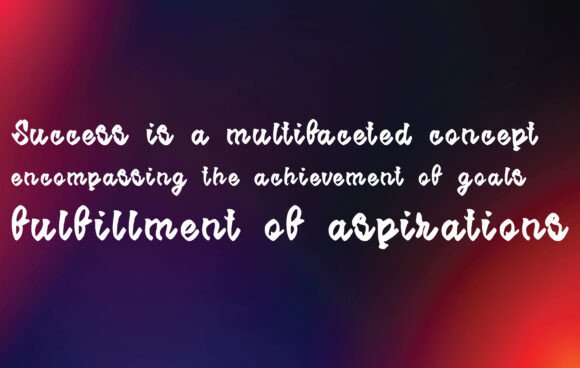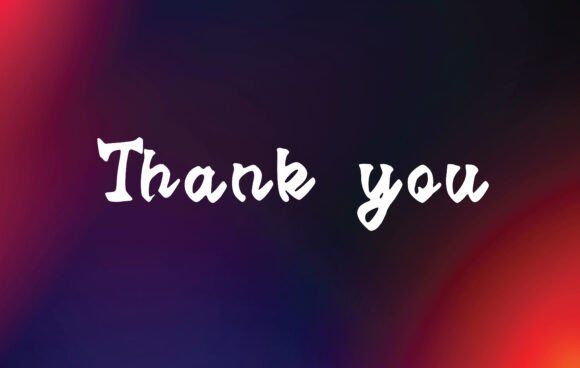
Abilene Font: Elevate Your Creative Projects with this Lovely Handwritten Font
Are you a designer, crafty person, or someone who loves to create unique and eye-catching content? Look no further than the Abilene Font, a beautiful handwritten font that can take your creative ideas to the highest level. In this article, we’ll explore the features and benefits of Abilene Font, and why it’s the perfect choice for creating stunning logos, branding, quotes, and more.
What is Abilene Font?
Abilene Font is a carefully crafted handwritten font that exudes elegance and charm. Its unique and flowing script style makes it perfect for a wide range of creative projects, from logos and branding to quotes, posters, and social media graphics. The font’s beautiful letterforms and subtle variations in line width and spacing create a natural, hand-written look that’s sure to capture your audience’s attention.
Key Features of Abilene Font
- Unique and Elegant Design: Abilene Font features a distinctive and stylish script style that’s perfect for creating eye-catching designs.
- Handwritten Look: The font’s natural, hand-written appearance adds a touch of personality and warmth to your designs.
- Highly Versatile: Abilene Font can be used for a wide range of projects, from logos and branding to quotes, posters, and social media graphics.
- Easy to Read: Despite its elegant and cursive style, Abilene Font remains highly legible, making it perfect for both short and long texts.
Why Choose Abilene Font?
Abilene Font is an excellent choice for designers, crafters, and anyone looking to create stunning visual content. Here are just a few reasons why:
- Stand Out from the Crowd: With Abilene Font, you can create unique and eye-catching designs that set you apart from the competition.
- Save Time and Effort: The font’s elegant and cursive style means you can create beautiful designs quickly and easily, without spending hours on tedious design work.
- Perfect for Branding: Abilene Font is ideal for creating consistent and recognizable branding across all your marketing materials.
How to Use Abilene Font
Abilene Font is incredibly easy to use, even if you’re not a design expert. Here are a few tips to get you started:
- Logos and Branding: Use Abilene Font to create stunning logos, business cards, and other branding materials.
- Quotes and Posters: Create eye-catching quotes, posters, and social media graphics that showcase your favorite inspirational quotes.
- Social Media Graphics: Use Abilene Font to create beautiful social media graphics, including Facebook and Twitter headers, and Instagram posts.
Abilene Font is a beautiful and versatile handwritten font that’s perfect for designers, crafters, and anyone looking to create stunning visual content. With its unique and elegant design, highly legible style, and ease of use, Abilene Font is an excellent choice for a wide range of creative projects. Whether you’re looking to create eye-catching logos, branding, quotes, or social media graphics, Abilene Font is sure to take your creative ideas to the highest level.